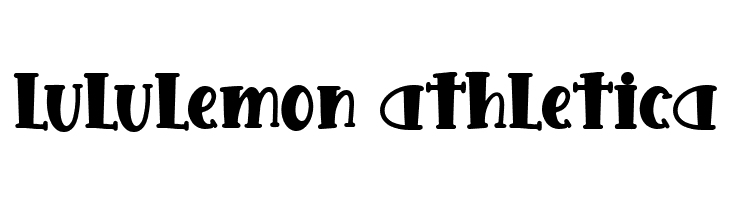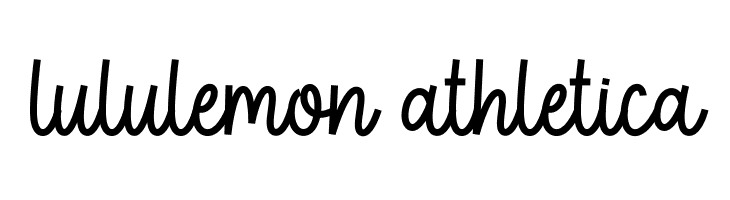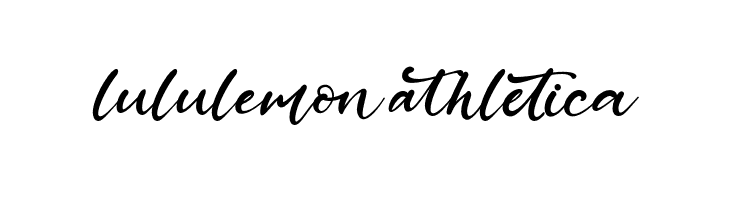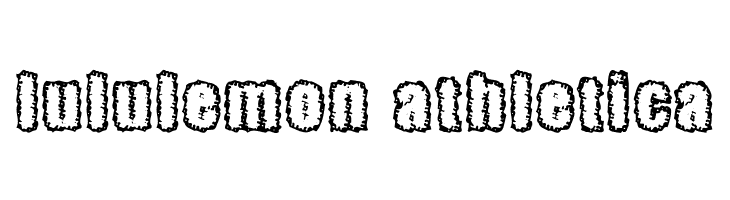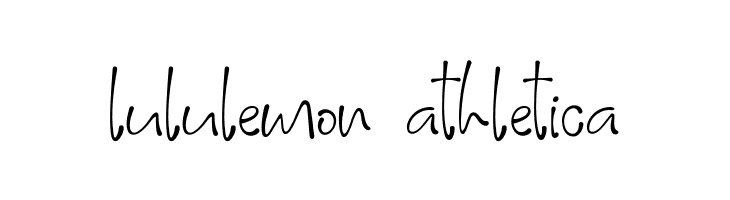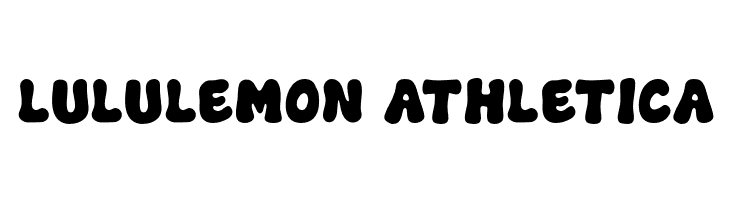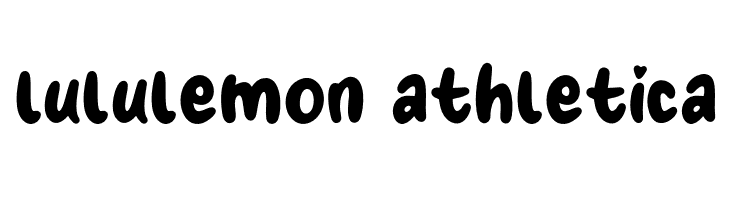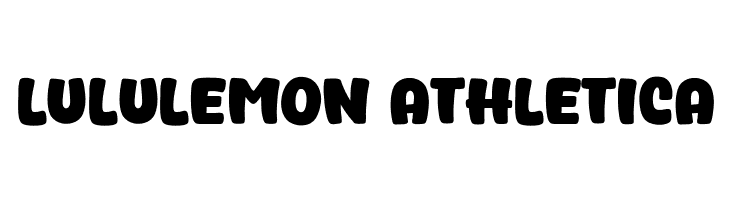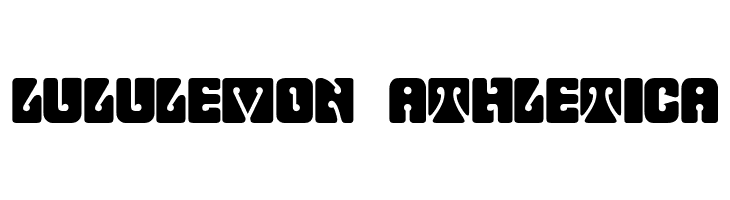
A jagged, edgy font with irregular strokes, perfect for dramatic designs.
A playful, handwritten font with smooth, rounded edges and a casual style.
A bold, rounded font with a playful, hand-drawn style.
A playful and elegant script font with flowing, cursive letters.
A playful and elegant script font with fluid, cursive strokes.
A playful handwritten font with smooth, flowing strokes and a casual, friendly appearance.
A playful, handwritten font with a whimsical and casual style.
A bold, playful script font with flowing, dynamic strokes and a handwritten feel.
A bold, playful font with rounded, bubble-like characters.
A decorative font with letters in heart shapes, featuring floral accents.
A playful, handwritten font with smooth curves and a casual style.
A playful, handwritten font with a bold and casual style.
A playful, bold font with rounded characters and a whimsical style.
A playful and flowing script font with smooth, cursive strokes.
A playful, handwritten script font with connected letters and a lively style.
A playful, handwritten script font with a casual and lively style.
A playful, bold font with rounded, bubbly characters and a whimsical style.
A playful and whimsical font with bold, curvy letterforms.
A playful, heart-accented display font with a whimsical, hand-drawn style.
A lively, flowing script font with a playful, elegant style.
A playful, rounded font with a hand-drawn feel, perfect for creative projects.
A playful, hand-drawn font with rounded, bold characters.
A cursive, handwritten font with elegant, flowing strokes and dynamic contrast.
A playful, bold handwritten font with a casual and friendly style.
A bold, geometric font with high contrast and sharp angles.
A playful, bold font with jagged, hand-drawn outlines.
A playful, hand-drawn font with a whimsical and friendly style.
A bold, geometric font with rounded edges and minimal contrast.
A quirky, illustrative display font with stick-figure characters.
A playful, handwritten-style font with bold, rounded characters.
A playful, handwritten-style font with consistent stroke width and dynamic character design.
A modern-vintage font with tall, narrow letterforms and artistic flair.
A playful, hand-drawn font with dynamic strokes and a whimsical style.